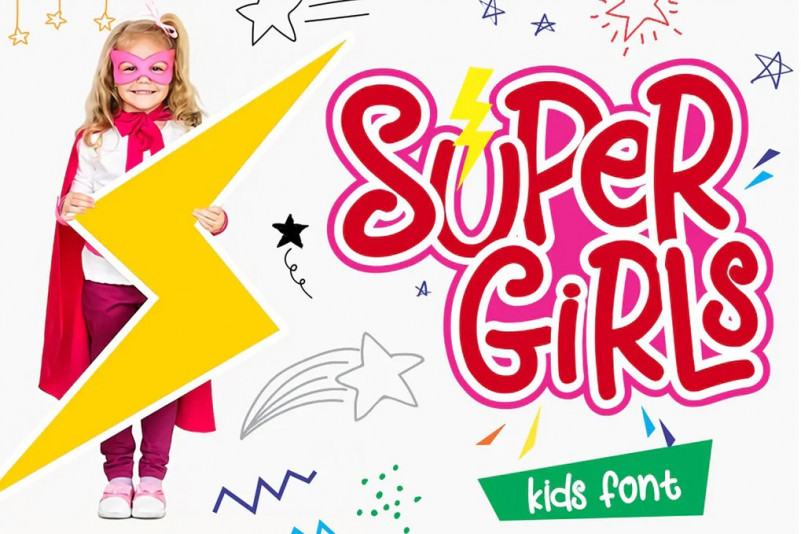
Supergirls Font
Super Girls Playfull Font is playfull, display font. Super Girls Playfull Font would perfect for kids poster, flyer , cover children book, cartoon, comic and etc.